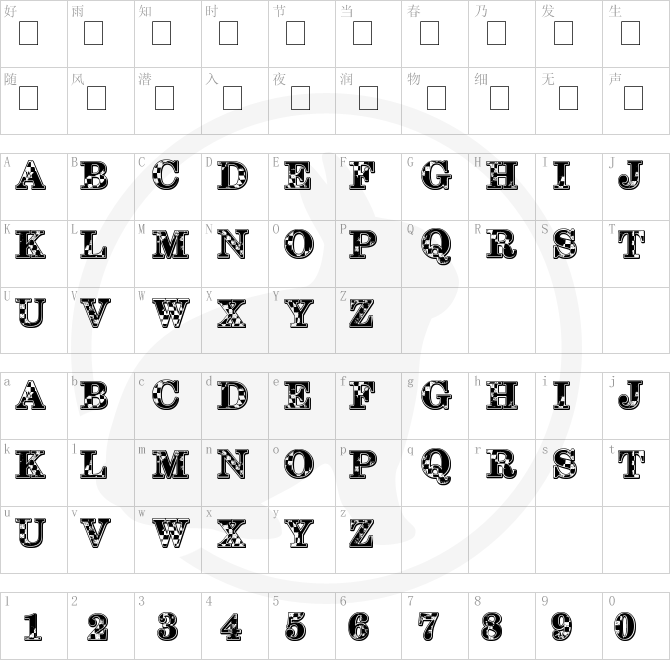
- Font Name:1-2-3 GO!
1-2-3-GO!-copy-1-.ttf is a very beautiful artistic font, 1-2-3-GO!-copy-1-.ttf is widely used in the design and printing of various books and pictures,1-2-3-GO!-copy-1-.ttf has a strong visual impact,1-2-3-GO!-copy-1-.ttf is a commonly used font in newspapers, magazines and books, and is used in posters, e-commerce Poster design, store design, logo design, font design and other fields.1-2-3-GO!-copy-1-.